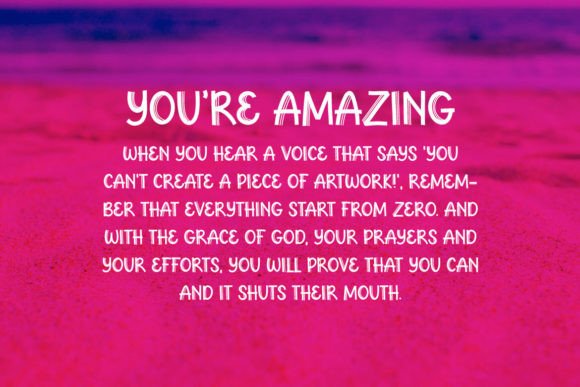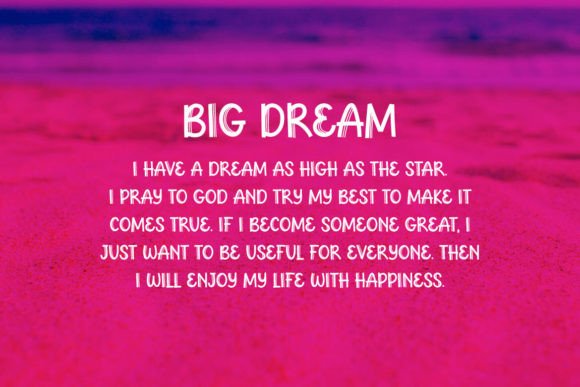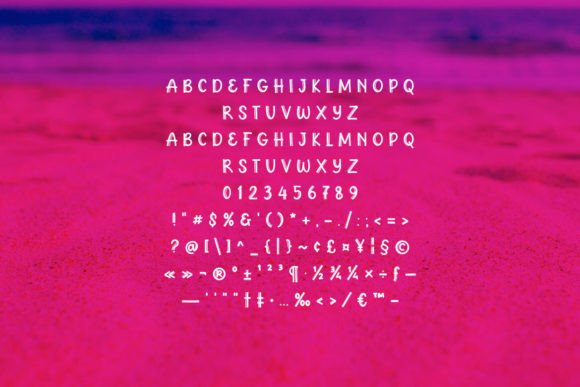
Introduction to Komikuda Font
Have you ever stared at a blank design project, searching for the perfect font to bring your creative vision to life? The struggle is real, but what if I told you there’s a game-changing solution that can elevate your designs in an instant? Enter the stunning Komikuda Font, a decorative font that’s about to become your new design BFF.
As a designer, you know how much a single font can make or break a project. That’s why having access to a high-quality, versatile font like Komikuda Font is invaluable. With its intricate details and elegant flair, this font is perfect for adding a touch of sophistication to invitations, branding, signage, and more. Plus, with a transparent background and high-quality design, it’s the perfect design resource for any creative project.
Key Features of Komikuda Font
- Komikuda Font is a unique and creative design element that can add a touch of personality to any project.
Honest Review: Komikuda Font
I recently came across the Komikuda Font, a design resource that has been gaining popularity among designers. I was excited to try it out for my next creative project.
What works well with the Komikuda Font is its high-quality design and transparent background, making it easy to integrate with any design project. The font is perfect for creating a playful and youthful vibe, which is ideal for projects targeting a younger audience.
Here are some of the features that I love about the Komikuda Font:
- Limited character set, which may not be suitable for projects that require a wide range of characters
- No bold or italic versions, which can be a limitation for certain design projects
Overall, I’m impressed with the Komikuda Font and would recommend it for designers looking for a high-quality, free font for their creative projects. Just be aware of its limitations and use it accordingly.
Common Use Cases and Tips
The Komikuda Font is ideal for creative projects, such as graphic design, digital art, and typography. To get the most out of the font, experiment with different font sizes, colors, and combinations. You can also use the font to create a high-quality logo or branding material.
Alternatives to Komikuda Font
1. Comic Sans MS
Comic Sans MS is a classic sans-serif font that’s perfect for creating a playful and approachable tone in your design. It’s great for use in children’s books, magazines, and websites that require a lighthearted feel. When to use: Use Comic Sans MS for creative projects that require a casual and friendly atmosphere. How it compares to Komikuda Font: While Komikuda Font has a more modern and edgy feel, Comic Sans MS is a more traditional and nostalgic choice.